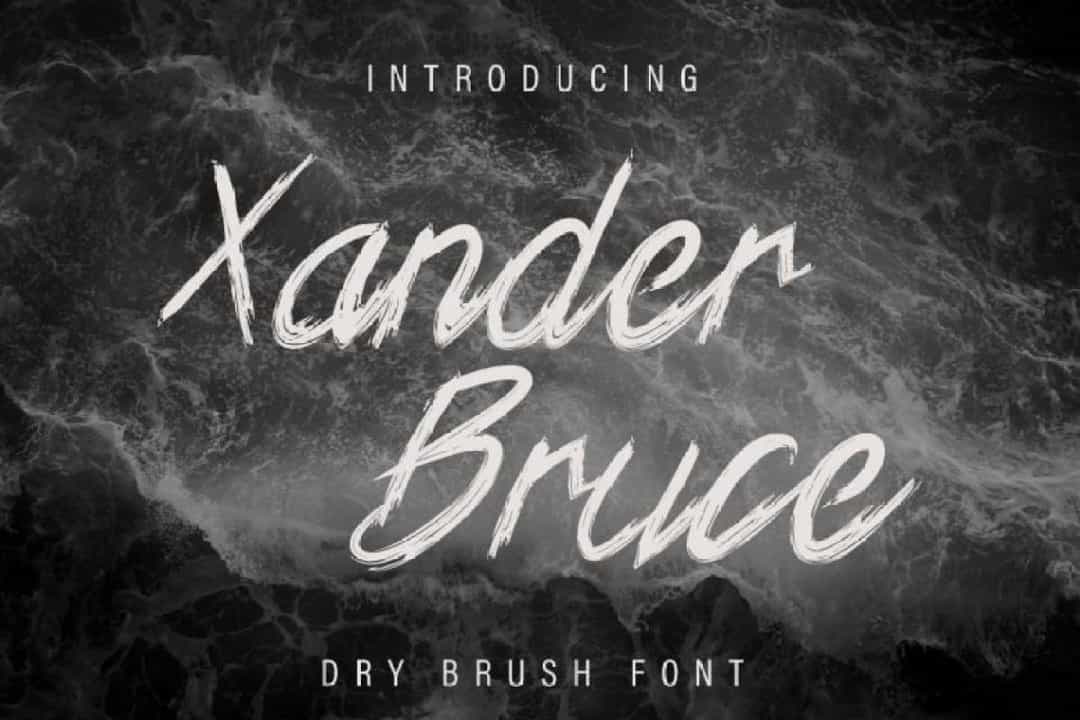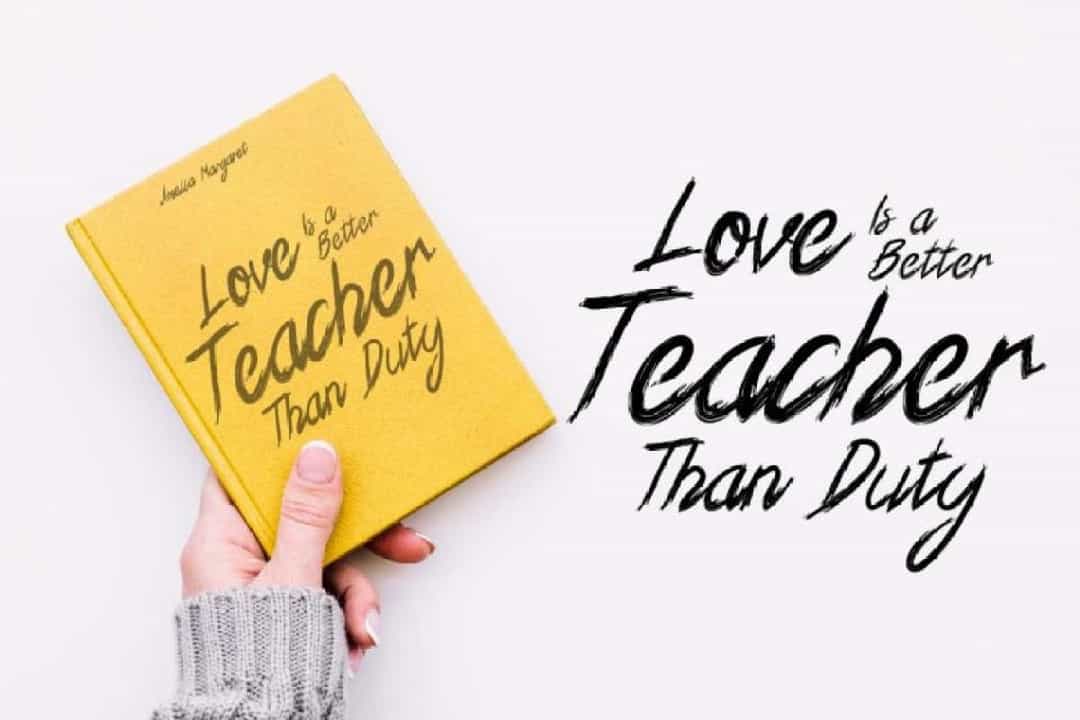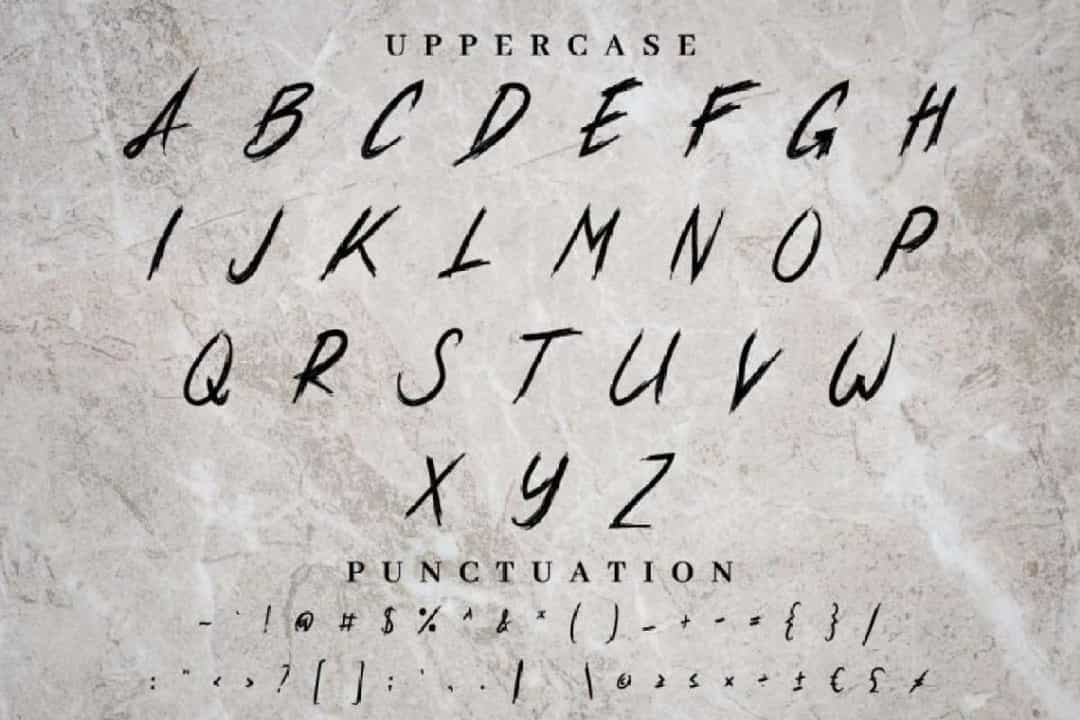
Xander Bruce is a new modern script display font, which has a distinctive dry brush style. With its style you can explore many industries and designs categories including and not limited to : wedding, events, music, restaurant, cafe, coffee and so on.